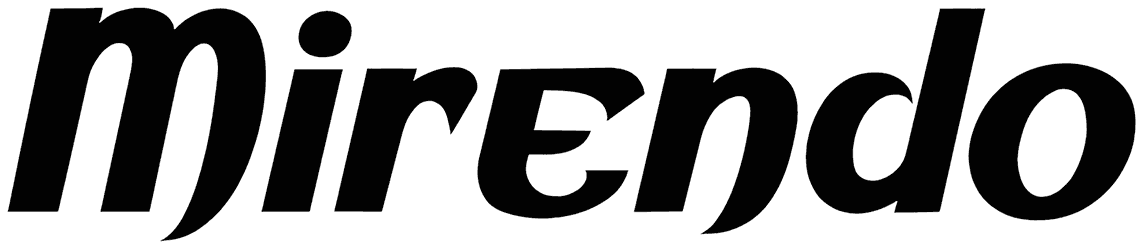
Mirendo Font
Mirendo is a magical, futuristic font that is carefully created with an elegant touch to turn any creative ideas such as business cards, T-shirts, book covers, magazines, and billboards into a true piece of art. Despite the fact that it doesn’t fully support numbers, it can share a sense of professionalism, dynamic, and precision with the audience.